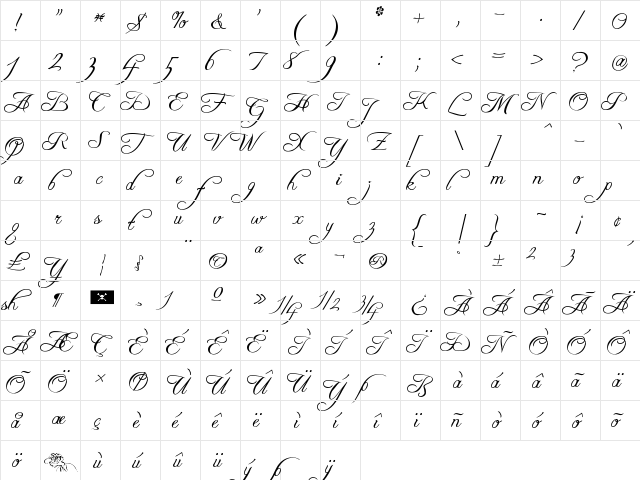
Freebooter Script Regular
| Designer | Graham Meade |
Design Context for Freebooter Script Typeface
Freebooter Script brings a calligraphic fluidity to the page — its connecting strokes and expressive curves give it an unmistakably human quality.
Font Pairing: Combine Freebooter Script with a simple geometric sans for maximum contrast — the tension between flowing curves and clean structure is a classic typographic pairing.
Pro Tip: Pair Freebooter Script with a clean sans-serif for supporting text. The contrast between fluid script and geometric structure creates an elegant typographic hierarchy.